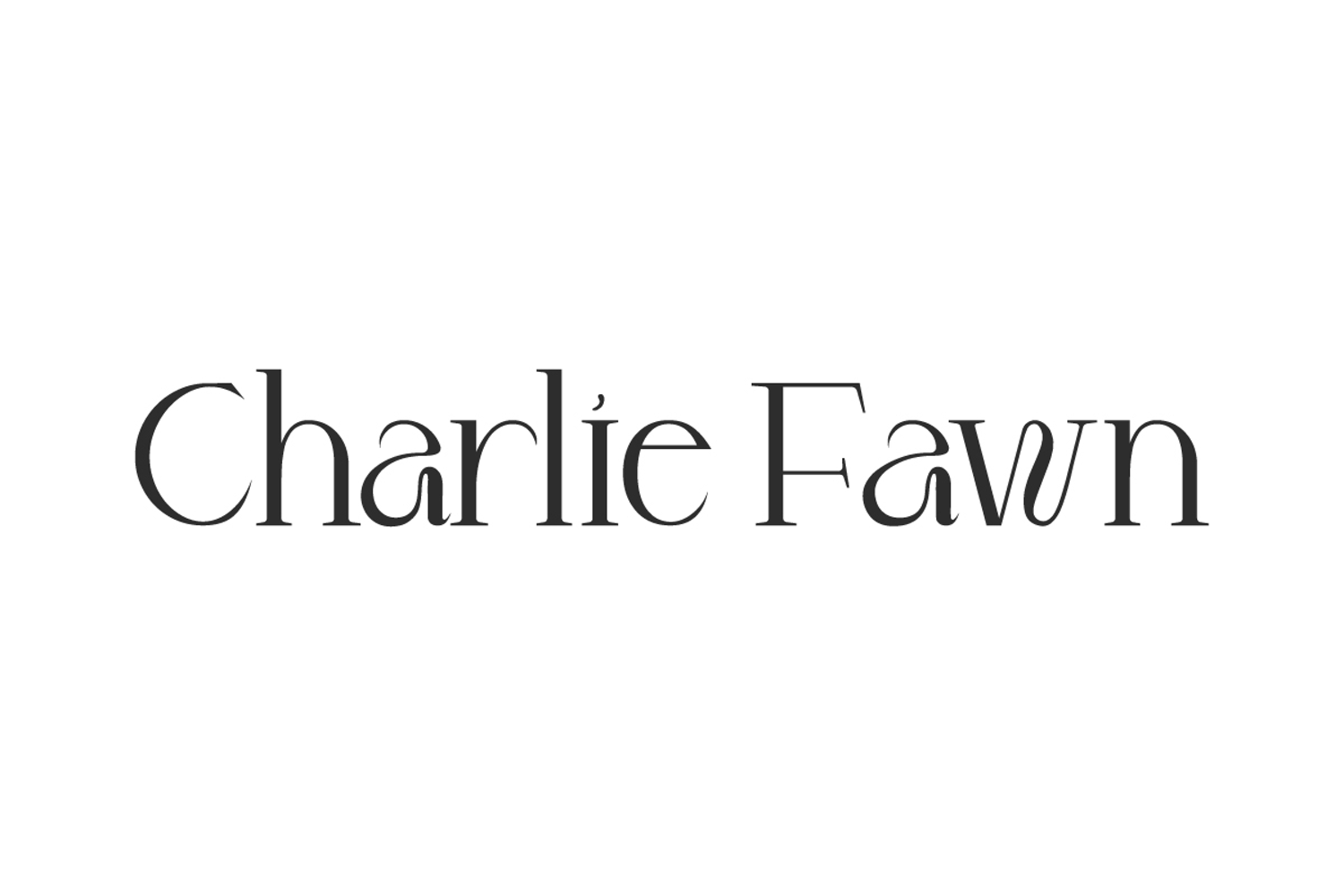
Charlie Fawn Font
Charlie Fawn Font is an elegant serif typeface with a fashionable feel. This sleek and unique font can contribute to a modern brand’s appeal. You can use this for any creative design, such as banners, branding, brochure, labels, logos, magazines, mockup design, packaging, posters, quotes, stickers, watermarks, website, and more.
Charlie Fawn Font contains a complete set of basic Uppercase and Lowercase characters, Numbers, Symbols and Punctuation. The appearance of this modern and luxurious font has its own charm. Bringing a touch of sophistication and ensuring versatility for all your creative needs. This font can be used for jewelry stores, skincare, spa, etc.